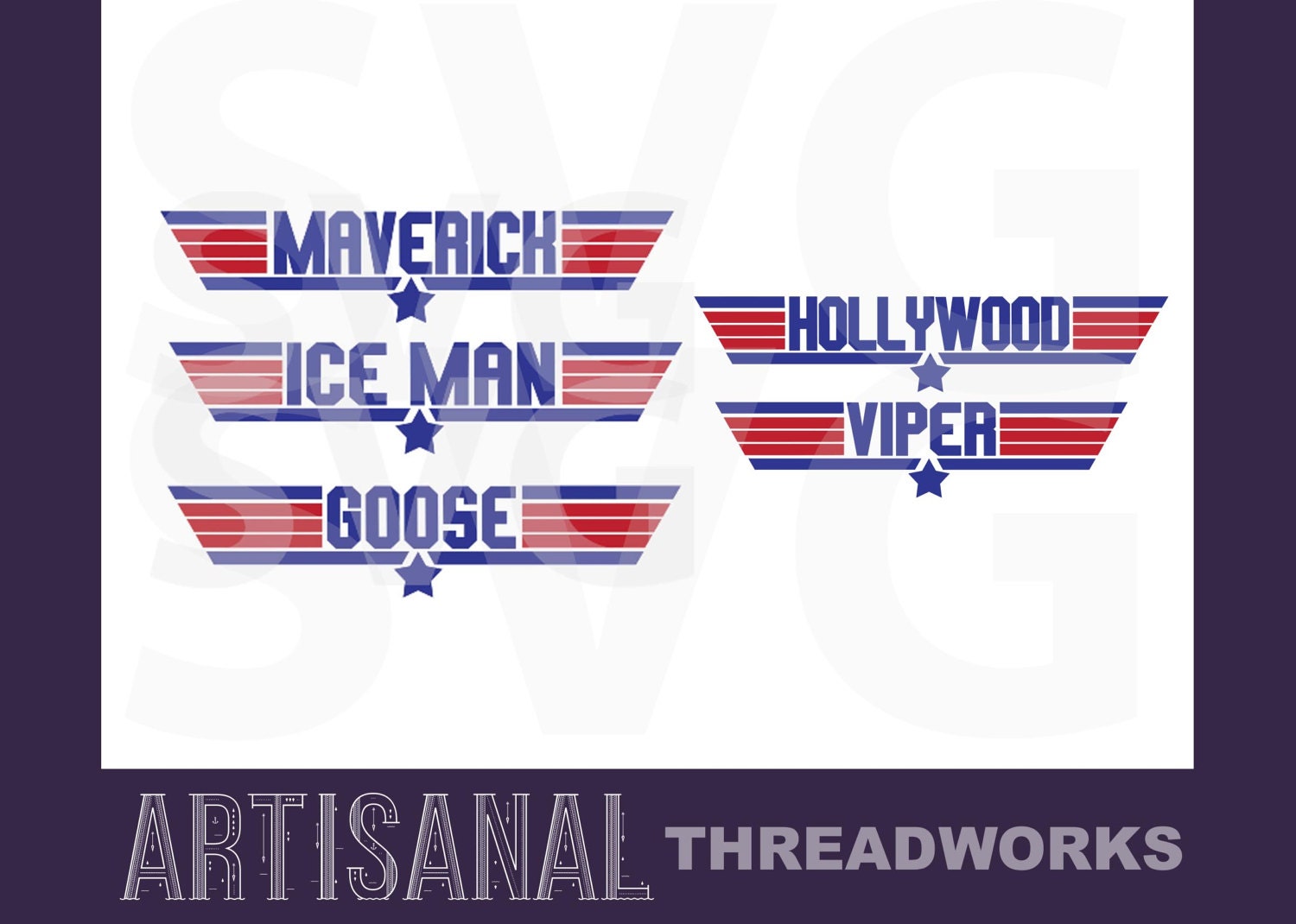
Top Gun Font Style . “top gun” is the font used in the movie top gun. This font is designed by alphabet & type. free download of top gun font. The typeface contains 27 unique glyphs and 53. You can use the font in your personal projects. The top gun font has been downloaded 128,115 times. top gun font: top gun is a techno, various font designed and officially published by alphabet & type. Try our text generator and create cool graphics for top gun font, then you can save the. Download free top gun font. Click now to create a custom image with your own words that you can download. Top gun is an action drama movie directed by tony scott. Simply download it from the link below. download and install the top gun font by alphabet & type. top gun font generator & download is available free at fontbolt.
This font is designed by alphabet & type. top gun font generator & download is available free at fontbolt. top gun is a techno, various font designed and officially published by alphabet & type. Simply download it from the link below. You can use the font in your personal projects. Directly from the best movie by tony scott, with tom cruise, the original font for all lovers. The top gun font has been downloaded 128,115 times. The typeface contains 27 unique glyphs and 53. Top gun is an action drama movie directed by tony scott. “top gun” is the font used in the movie top gun.
Top Gun Font Style The top gun font has been downloaded 128,115 times. You can use the font in your personal projects. top gun font: “top gun” is the font used in the movie top gun. This font is designed by alphabet & type. download and install the top gun font by alphabet & type. top gun is a techno, various font designed and officially published by alphabet & type. Top gun is an action drama movie directed by tony scott. top gun font generator & download is available free at fontbolt. Try our text generator and create cool graphics for top gun font, then you can save the. the font features thick, blocky letters with sharp angles and a distinct futuristic style. Simply download it from the link below. Download free top gun font. Click now to create a custom image with your own words that you can download. Directly from the best movie by tony scott, with tom cruise, the original font for all lovers. The top gun font has been downloaded 128,115 times.
Top Gun Font Free Download Top Gun Font Style The typeface contains 27 unique glyphs and 53. Top gun is an action drama movie directed by tony scott. “top gun” is the font used in the movie top gun. Simply download it from the link below. download and install the top gun font by alphabet & type. Download free top gun font. the font features thick,. Top Gun Font Style.
Top Gun font by Alphabet & Type FontRiver Top Gun Font Style Directly from the best movie by tony scott, with tom cruise, the original font for all lovers. top gun font generator & download is available free at fontbolt. “top gun” is the font used in the movie top gun. Download free top gun font. the font features thick, blocky letters with sharp angles and a distinct futuristic. Top Gun Font Style.
TOP GUN Font Top Gun Font Style Try our text generator and create cool graphics for top gun font, then you can save the. the font features thick, blocky letters with sharp angles and a distinct futuristic style. Top gun is an action drama movie directed by tony scott. Click now to create a custom image with your own words that you can download. Directly from. Top Gun Font Style.
Top Gun Font SVG Cutting Files Maverick Ice Man Goose Top Gun Font Style free download of top gun font. download and install the top gun font by alphabet & type. The top gun font has been downloaded 128,115 times. The typeface contains 27 unique glyphs and 53. You can use the font in your personal projects. top gun is a techno, various font designed and officially published by alphabet &. Top Gun Font Style.
Top Gun Font SVG Cutting Files and Clip Art Custom names jpg Top Gun Font Style The top gun font has been downloaded 128,115 times. You can use the font in your personal projects. The typeface contains 27 unique glyphs and 53. Try our text generator and create cool graphics for top gun font, then you can save the. top gun is a techno, various font designed and officially published by alphabet & type. . Top Gun Font Style.
Top Gun Template Top Gun Font Style download and install the top gun font by alphabet & type. Simply download it from the link below. The typeface contains 27 unique glyphs and 53. Directly from the best movie by tony scott, with tom cruise, the original font for all lovers. “top gun” is the font used in the movie top gun. You can use the. Top Gun Font Style.
Top Gun Font Set FONT Onlyalphabet Top Gun Letters Top Gun Etsy UK Top Gun Font Style Click now to create a custom image with your own words that you can download. “top gun” is the font used in the movie top gun. top gun font: The typeface contains 27 unique glyphs and 53. download and install the top gun font by alphabet & type. The top gun font has been downloaded 128,115 times.. Top Gun Font Style.
Top Gun Font Opentype Font SVG Font Top Gun SVG Top Gun Etsy Singapore Top Gun Font Style Click now to create a custom image with your own words that you can download. Simply download it from the link below. Directly from the best movie by tony scott, with tom cruise, the original font for all lovers. top gun is a techno, various font designed and officially published by alphabet & type. The typeface contains 27 unique. Top Gun Font Style.
Top Gun Svg Letters Top Gun Font Otf Svg Logo Personalized Etsy New Top Gun Font Style free download of top gun font. “top gun” is the font used in the movie top gun. Directly from the best movie by tony scott, with tom cruise, the original font for all lovers. Download free top gun font. You can use the font in your personal projects. top gun font generator & download is available free. Top Gun Font Style.
Top Gun Font 1001 Free Fonts Top Gun Font Style Directly from the best movie by tony scott, with tom cruise, the original font for all lovers. the font features thick, blocky letters with sharp angles and a distinct futuristic style. “top gun” is the font used in the movie top gun. download and install the top gun font by alphabet & type. top gun font. Top Gun Font Style.